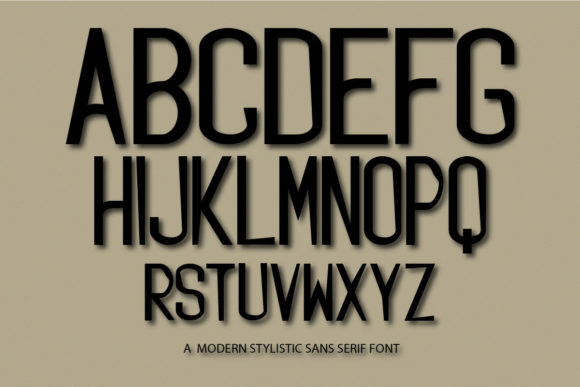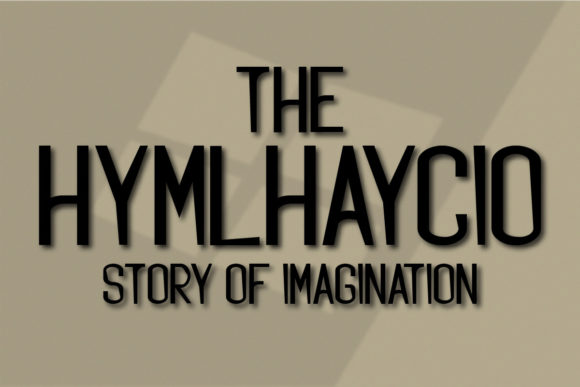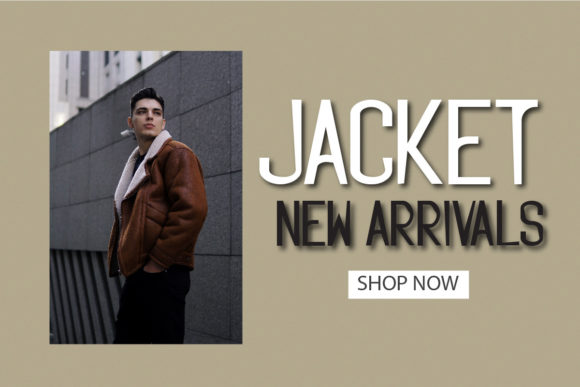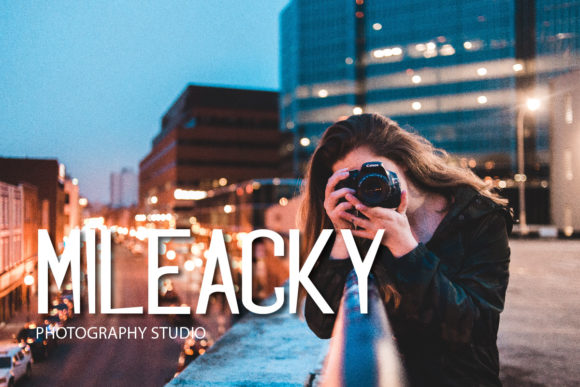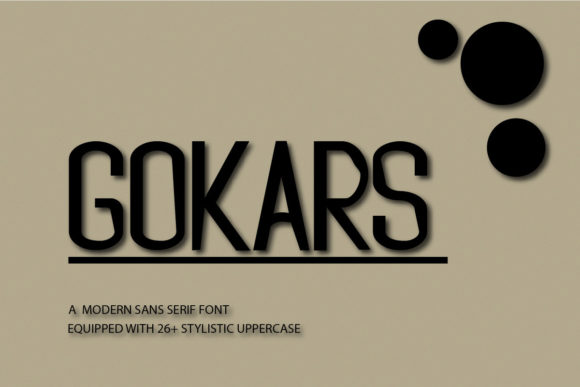
Gokars Font: The Ultimate Sans Serif Font for Modern Designs
In the world of typography, a good font can make all the difference in a design. It’s what sets the tone, conveys the message, and captures the audience’s attention. If you’re a designer or crafter looking for a versatile and elegant font, look no further than Gokars Font. In this article, we’ll dive into the features and benefits of Gokars, and explore why it’s becoming a favorite among designers.
What is Gokars Font?
Gokars Font is a minimal, yet elegant sans serif font that’s suitable for a wide variety of designs. Its neat and simple style makes it an excellent choice for projects that require a clean and modern look. Whether you’re working on a branding project, a website, or a craft, Gokars is the perfect font to add a touch of sophistication and elegance.
Key Features of Gokars Font
- Minimalist Design: Gokars has a sleek and minimalist design that makes it perfect for modern designs.
- Sans Serif: The font is sans serif, which means it doesn’t have any decorative lines or flourishes.
- Elegant: Despite its simplicity, Gokars has an elegant feel that’s perfect for high-end designs.
- Versatile: The font is suitable for a wide range of designs, from branding and advertising to web design and crafting.
Benefits of Using Gokars Font
So, why should you choose Gokars Font for your next project? Here are just a few benefits of using this amazing font:
- Easy to Read: Gokars is a highly legible font, making it perfect for body text and other long-form content.
- Scalable: The font is designed to look great at any size, from small captions to large headlines.
- Unique: While Gokars is a simple font, it has a unique character that sets it apart from more generic sans serif fonts.
- Time-Saving: With Gokars, you can create professional-looking designs in no time, thanks to its clean and elegant style.
Who Can Benefit from Gokars Font?
Gokars Font is perfect for a wide range of designers and crafters, including:
- Graphic Designers: Whether you’re working on a branding project or creating marketing materials, Gokars is a great choice.
- Web Designers: The font is perfect for web design, with its clean and modern style that’s sure to impress.
- Crafters: If you’re creating handmade products, such as cards, invitations, or DIY crafts, Gokars is a great font to use.
- Small Business Owners: If you’re looking for a professional font to use on your website or marketing materials, Gokars is an excellent choice.
How to Use Gokars Font
Using Gokars Font is easy! Here are a few tips to get you started:
- Pair it with Other Fonts: Gokars looks great when paired with other fonts, such as serif fonts or script fonts.
- Experiment with Colors: The font looks great in a variety of colors, from bold and bright to subtle and muted.
- Use it for Headlines and Body Text: Gokars is suitable for both headlines and body text, making it a versatile font for any project.
In conclusion, Gokars Font is a versatile and elegant sans serif font that’s perfect for modern designs. Its minimalist design, elegant feel, and versatility make it an excellent choice for a wide range of projects. Whether you’re a designer, crafter, or small business owner, Gokars is sure to become your go-to font. So why wait? Try Gokars Font today and take your designs to the next level!